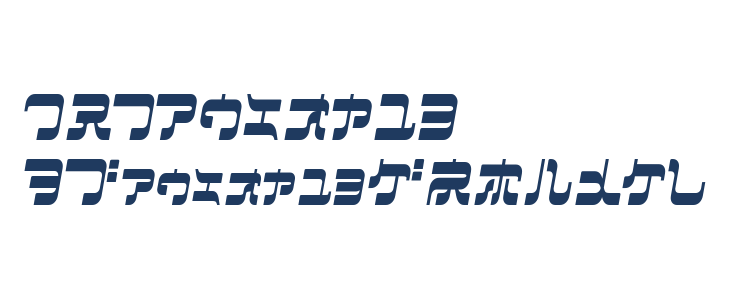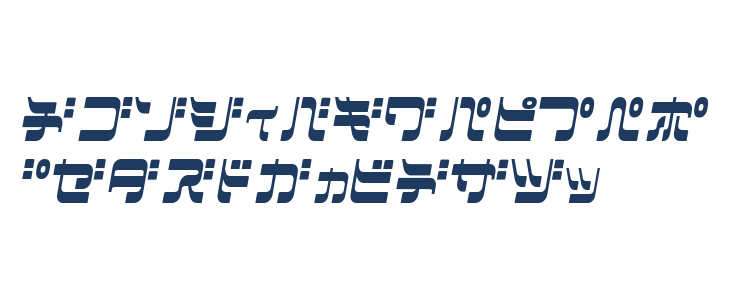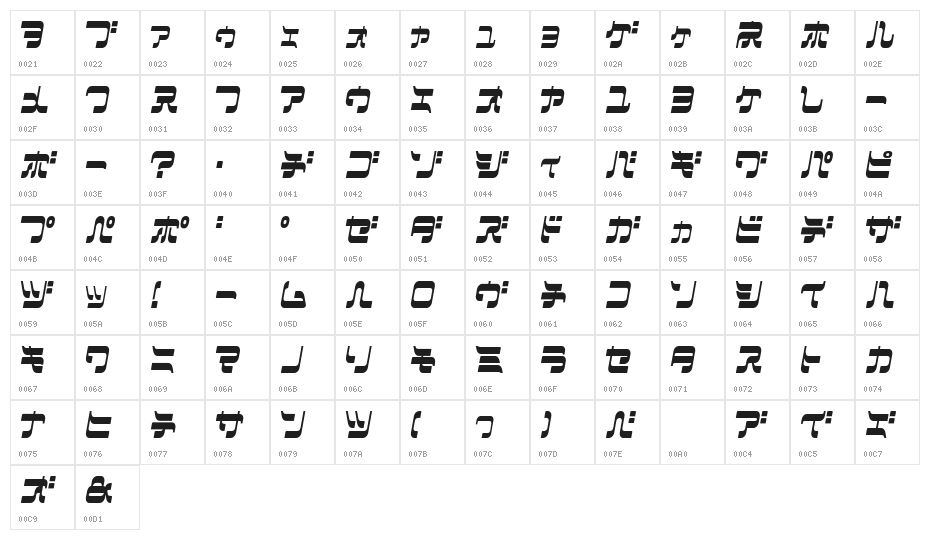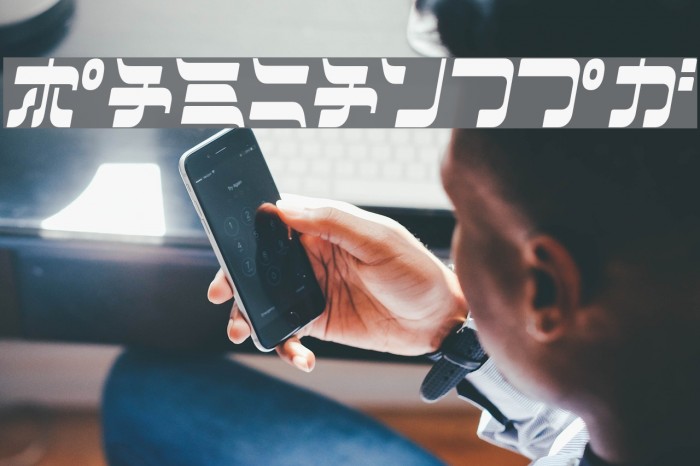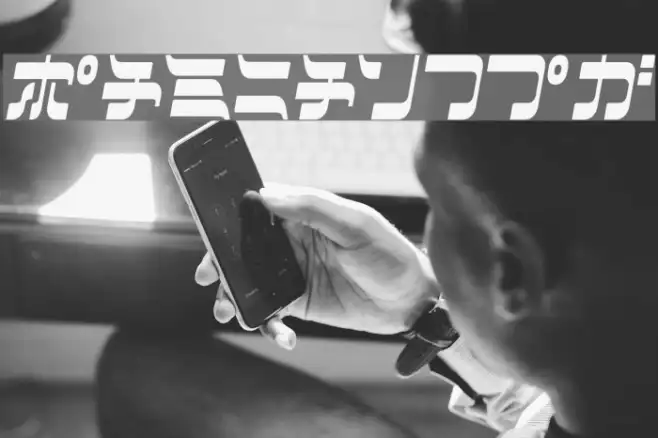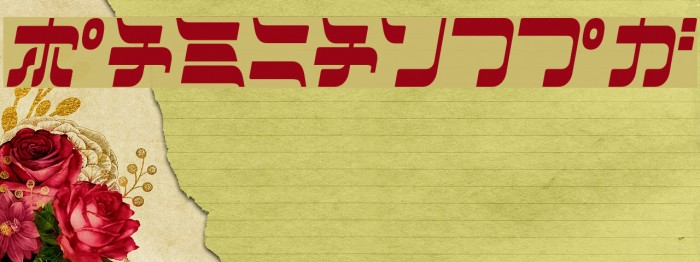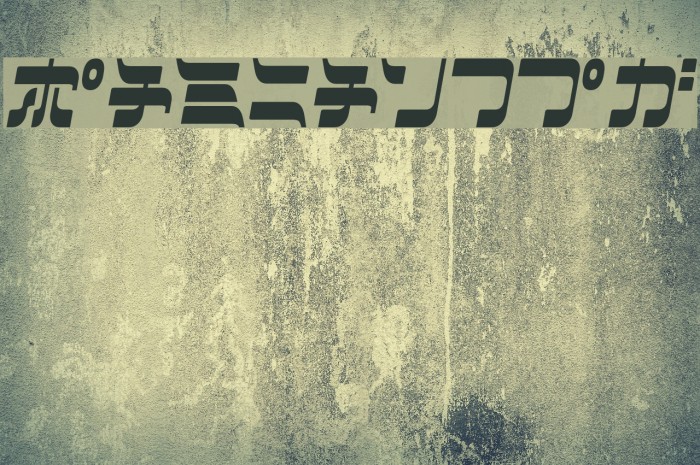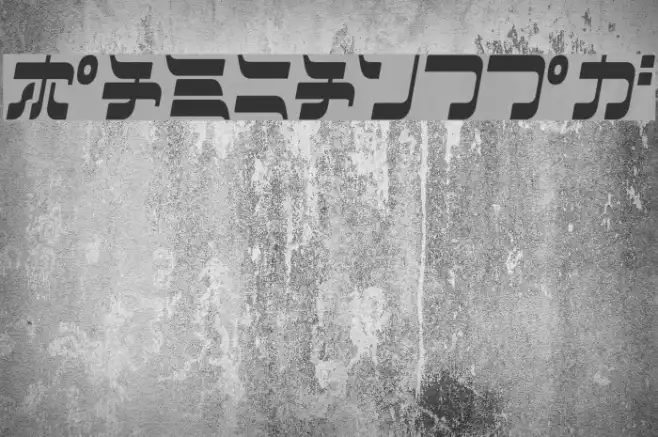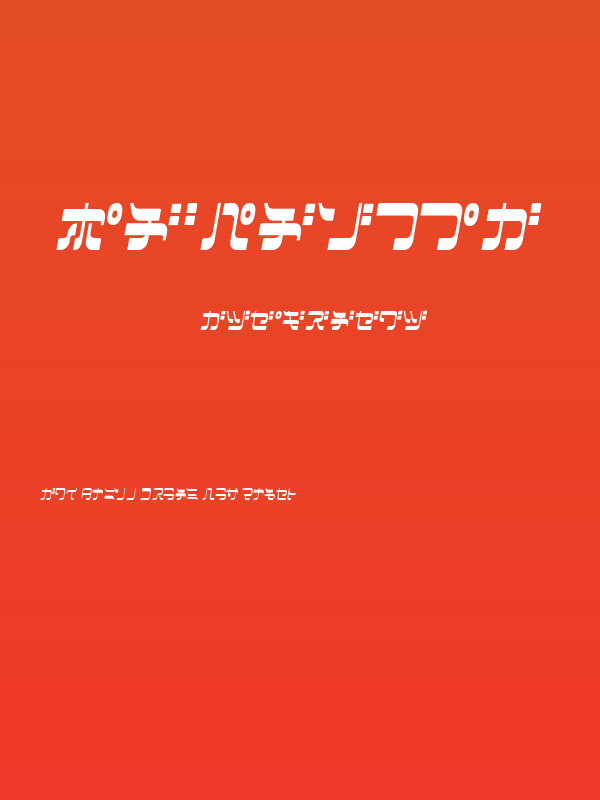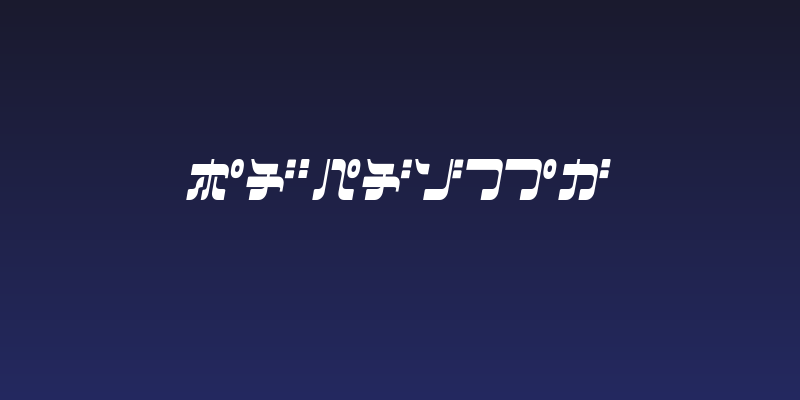
Maniac2KT Font
Maniac2KT Description
This font features a futuristic and bold design, characterized by its geometric shapes and sharp angles. The letters are stylized with a distinct, modern flair, incorporating elements that suggest movement and speed. The strokes are thick and consistent, giving the font a strong presence. Each character is uniquely crafted, with some letters featuring disconnected segments that add to its dynamic appearance. The overall aesthetic is sleek and contemporary, making it ideal for projects that require a cutting-edge look.
Proposed ProjectsIdeal for sci-fi themed designs, technology branding, video game titles, and modern advertising campaigns.